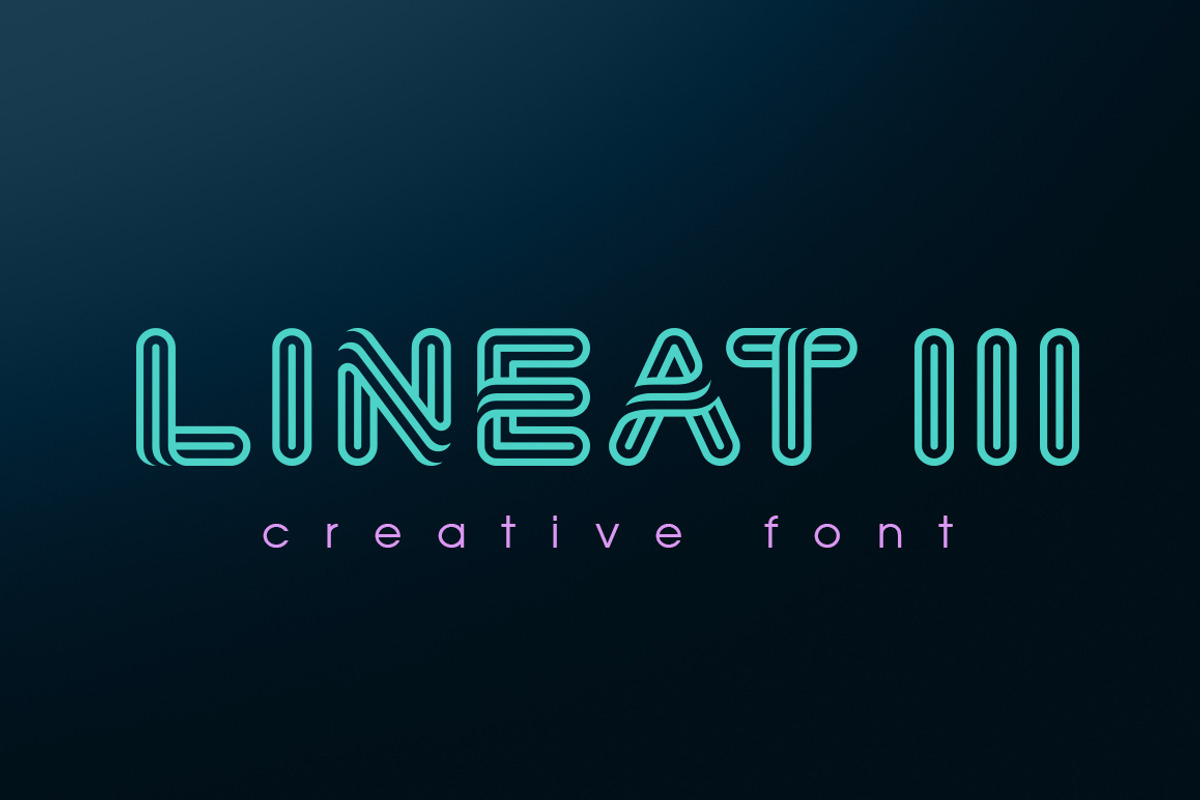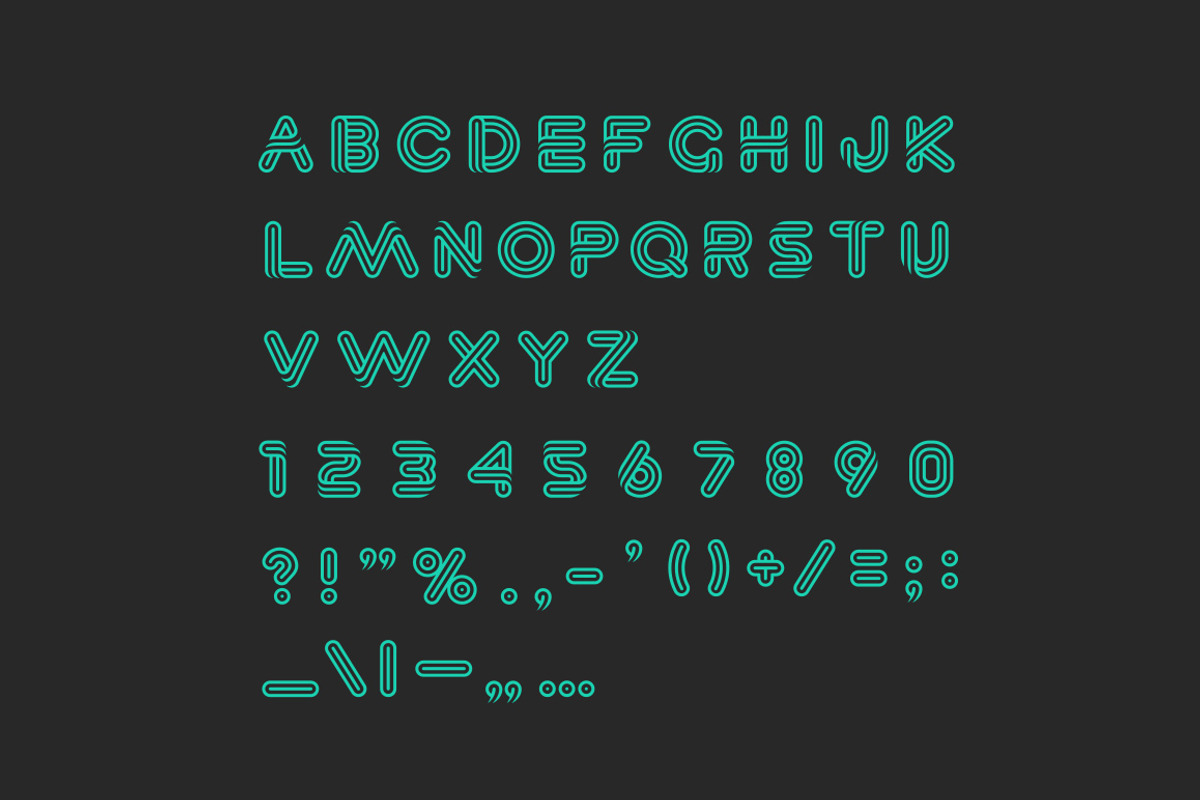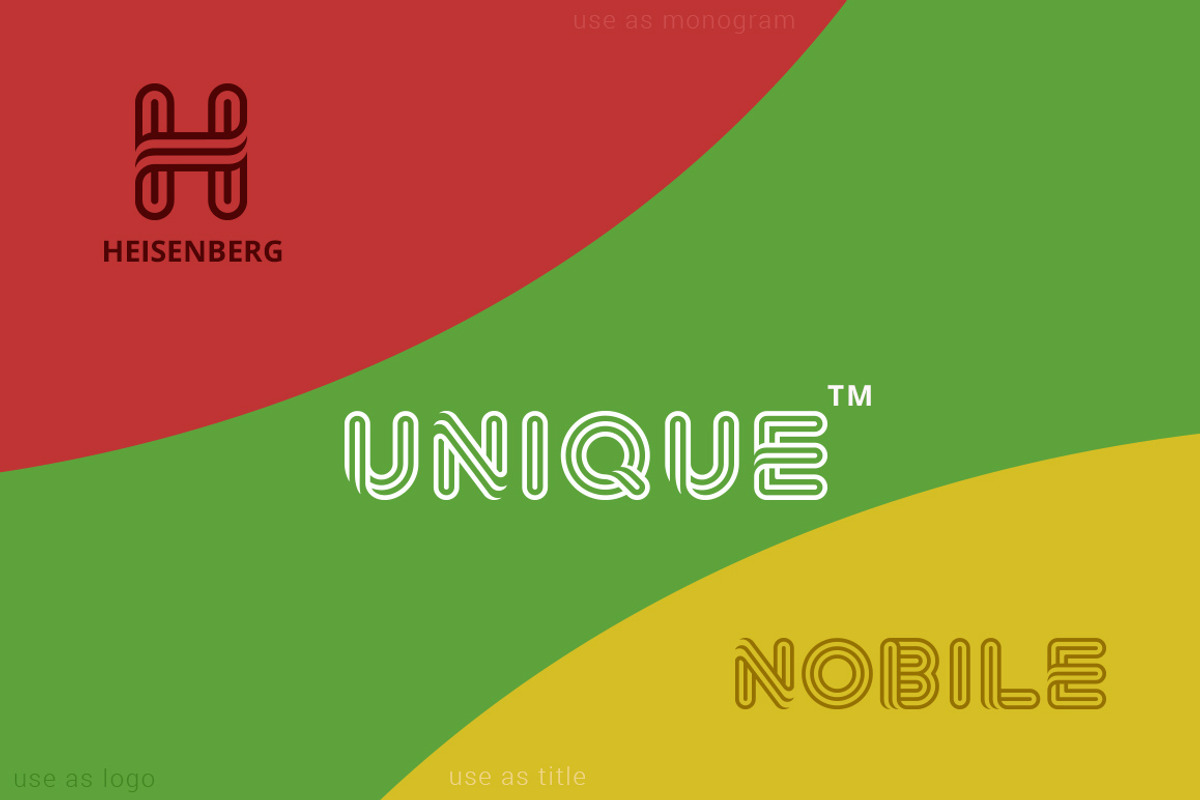
Lineat III font
Lineat III is stylish innovative creative font can be used as logo design and branding, titles & headers, posters & banners in such areas as fashion, high-tech, internet & computers, business innovations, sport & entertainment etc.